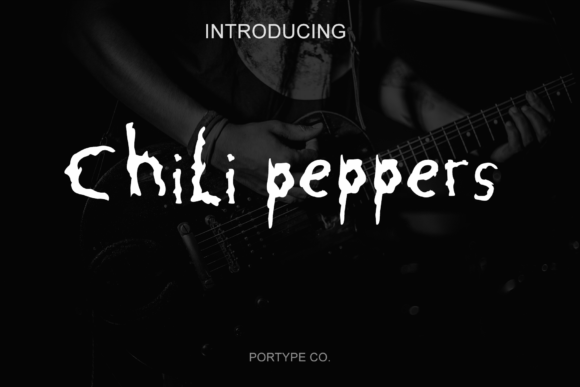
The Perfect Beat for Your Design
Imagine you’re at a music festival, surrounded by the rhythm and energy of live performances. The crowd is dancing, and the atmosphere is electric. That’s the kind of vibe you can capture with the right design, and the Chili Peppers Font is the perfect instrument to help you get there.
This beautiful font was inspired by the waves of music, and it’s designed to be playful and attention-grabbing. Whether you’re working on a T-shirt design, creating a bold brand identity, or need a font that stands out in modern advertising, the Chili Peppers Font is an invaluable asset for any designer.
Key Features of Chili Peppers Font
- Unique Characteristics: Chili Peppers Font features a unique blend of bold, spicy, and playful characters that evoke the feeling of a chili pepper, making it perfect for use in food, fashion, and entertainment brands.
- Character Set: The font includes a wide range of characters, including uppercase and lowercase letters, numbers, punctuation, and special characters, making it suitable for use in a variety of applications.
Chili Peppers Font Review
Overall, I think the Chili Peppers font is a fun and quirky addition to any design project. The unique blend of Latin-inspired letterforms and a spicy kick from the chili peppers themselves makes for a visually appealing and eye-catching font.
- ✨ Unique and recognizable design: The Chili Peppers font is easy to identify and has a distinct personality that will add character to your designs.
- ✨ High level of expressiveness: This font is perfect for projects that require a playful and energetic vibe, from food branding to music and entertainment.
- ✨ Wide range of applications: Chili Peppers can be used for various design elements, including logos, headings, body text, and even icons.
- ⚠️ Limited versatility in formal settings: While the font is great for playful projects, it may not be the best choice for formal or professional designs, where a more traditional or conservative font is often preferred.
- ⚠️ Potential readability issues: Some users may find the font’s unique design to be difficult to read, especially at smaller font sizes or in dense text.
Overall, I think the Chili Peppers font is a great choice for designers looking to add some personality and flair to their projects. While it may not be suitable for every design task, it’s definitely a fun and effective font to have in your toolkit.
Chili Peppers Font is ideal for:
- Bold headings and titles
- Eye-catching signage and posters
- Modern and edgy designs